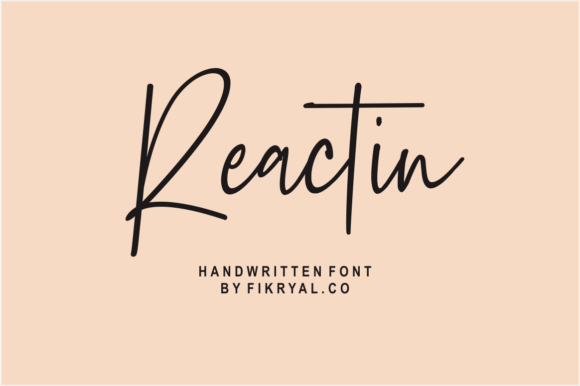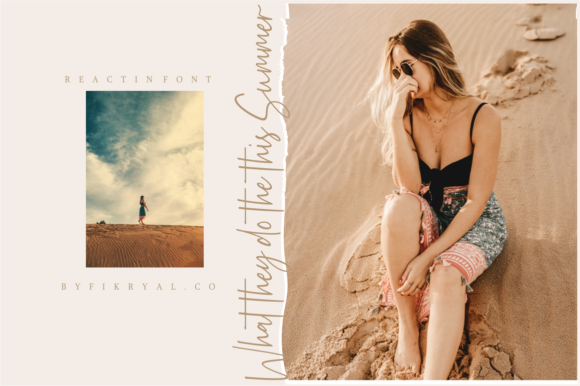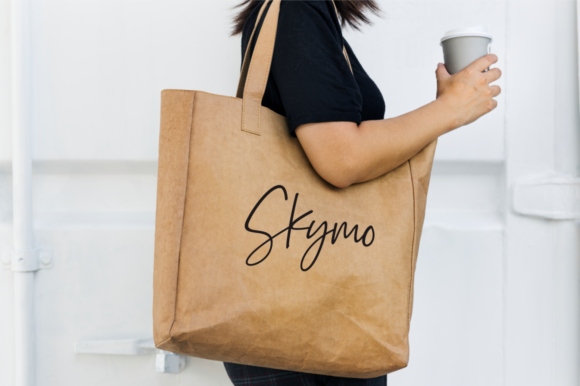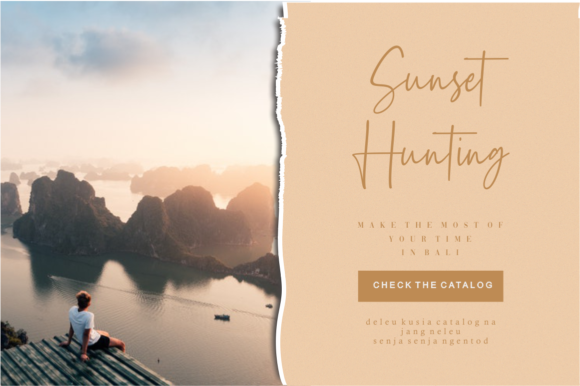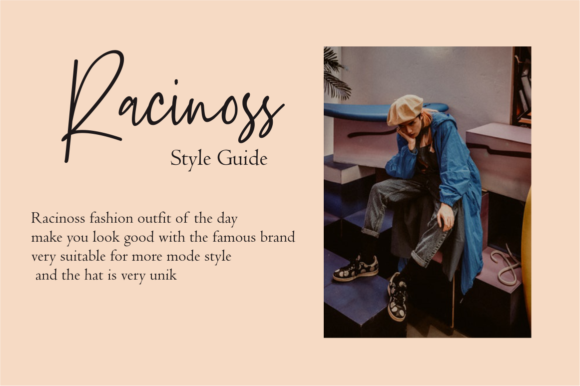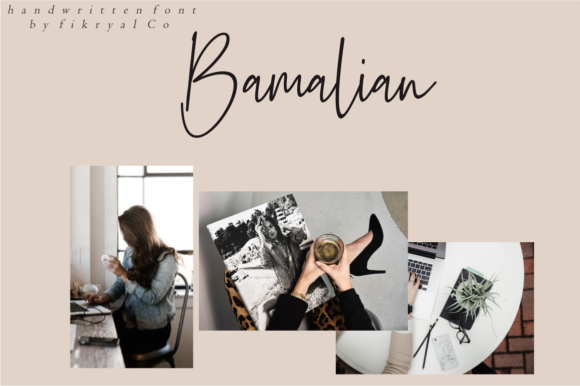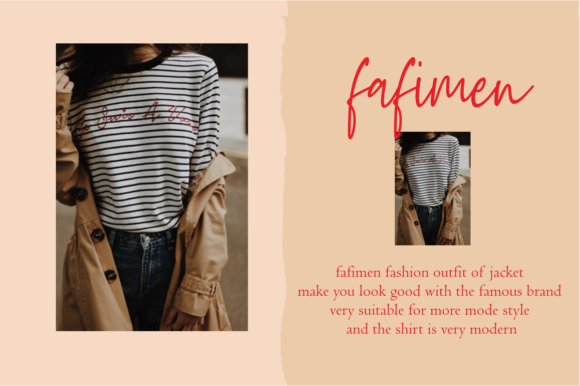
Reactin Font
About Reactin Font
Reactin is a stunning handwritten font with a personal vibe. Get inspired by its modern authenticity, and turn any design project into a true stand out.